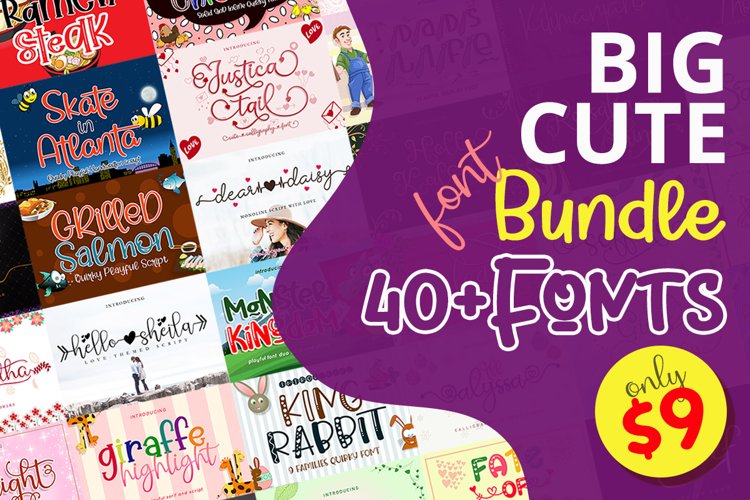
Love Cute Font Bundle - 43 Fonts Lovely and Fun
Love Cute Font Bundle is the collection of lovely and cute font from Airotype. It contains 43 fonts with 62 families. It includes the bestselling font, such as Hello Sheila and Ramen Steak.